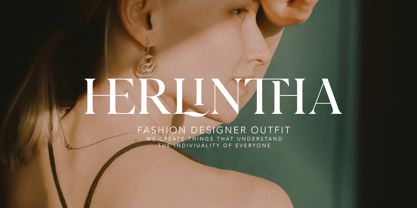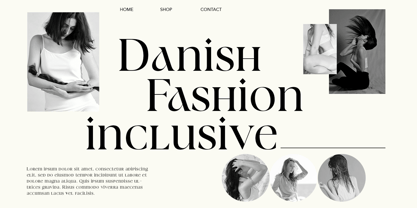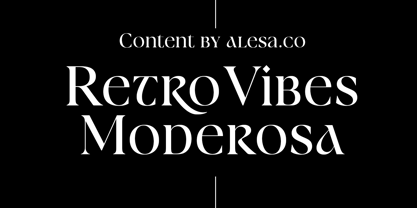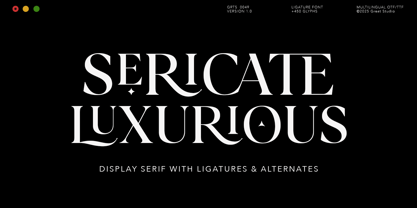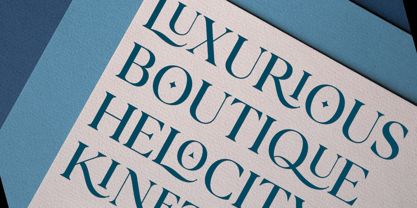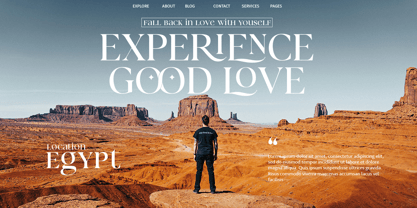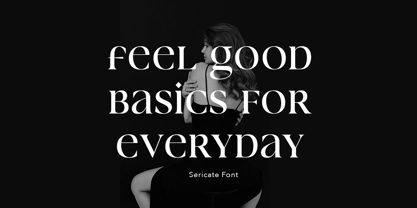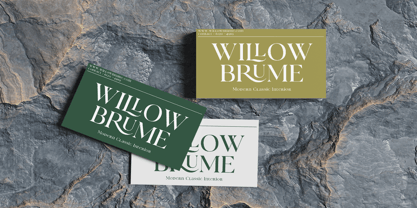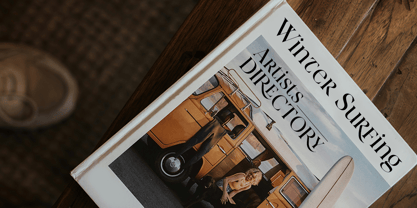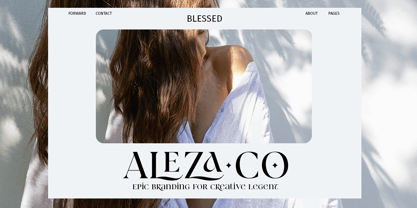
Sericate
by Great Studio
The Sericate Font Family was designed by Mulkan Nazir and published by Great Studio. Sericate contains 1 styles. More about this family
Sericate – Luxury Ligature Serif Font is a modern serif typeface with a luxurious and elegant touch. Designed with refined typographic details, each letter carries a graceful character with strong yet smooth lines. Its uniqueness lies in the exclusive ligatures that bring an artistic flair, making the text more lively, distinctive, and sophisticated.
This font is perfect for various design needs that require a luxurious, elegant, and professional impression, Premium branding and logos, Luxury product packaging, Fashion magazines & editorials, Wedding invitations, Classic-modern style headlines or titles.
With a blend of traditional serif aesthetics and contemporary elements, Sericate Font delivers a timeless feel that enhances your visual identity.
Designers: Mulkan Nazir
Foundry: Great Studio